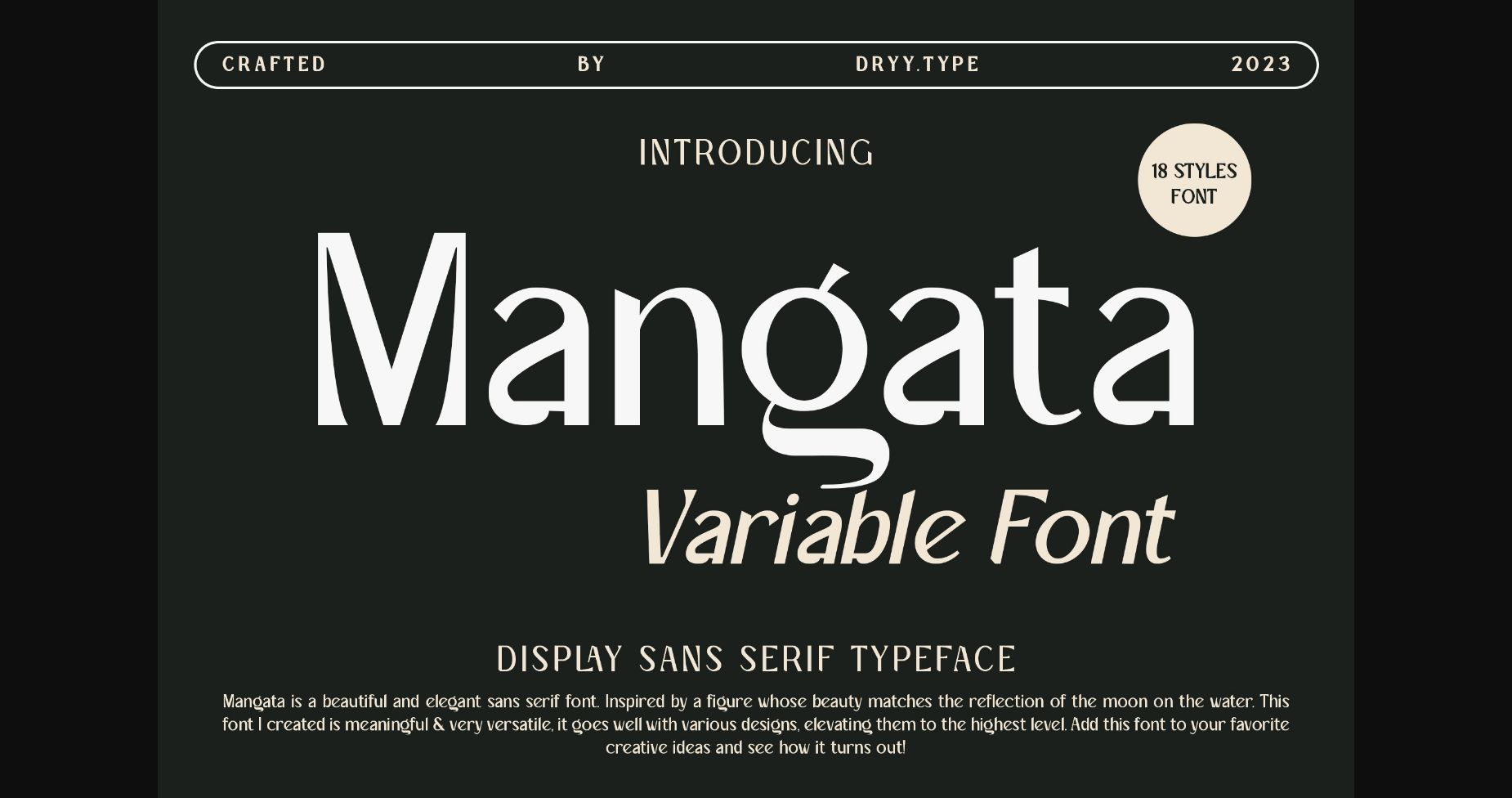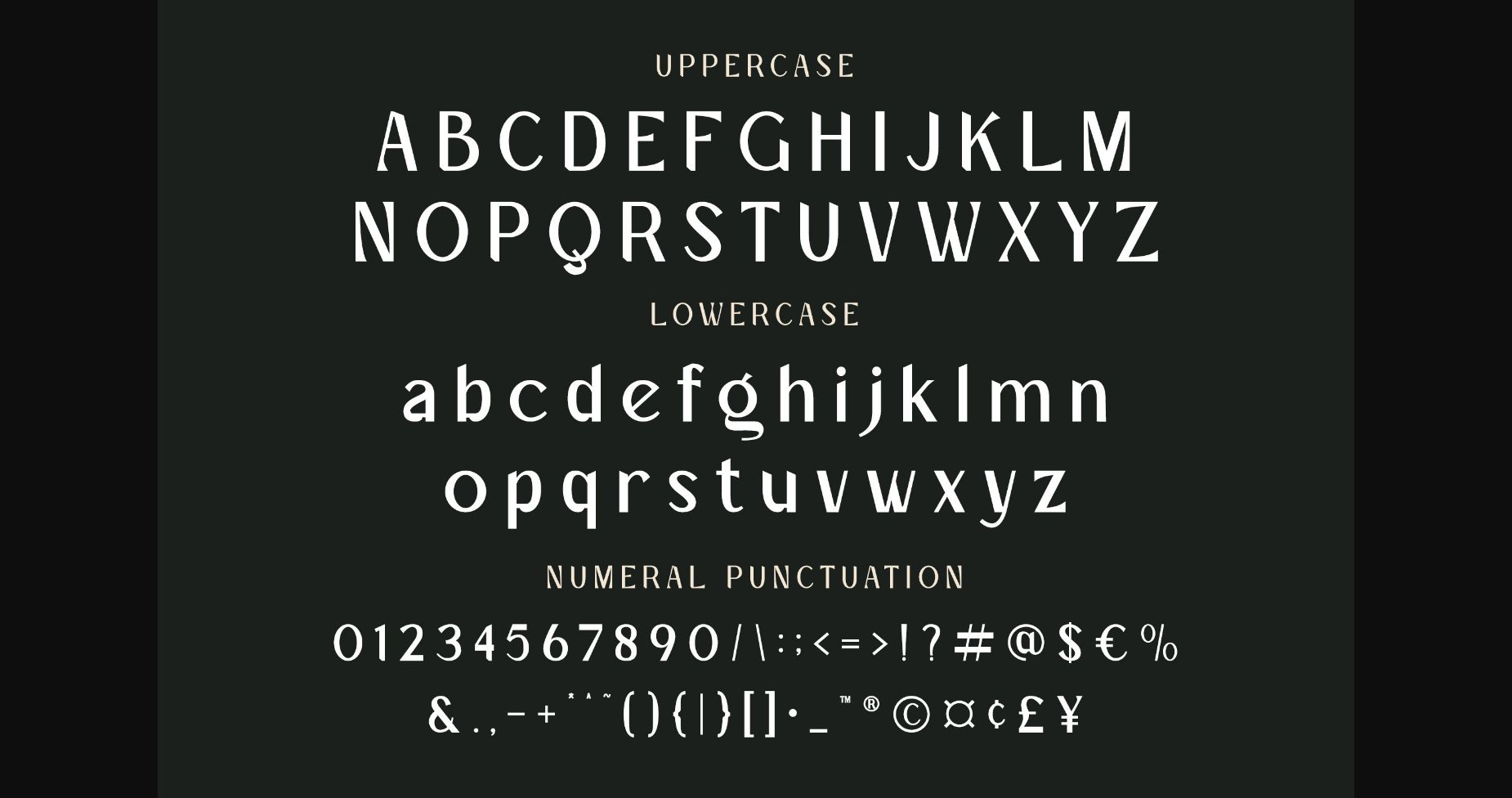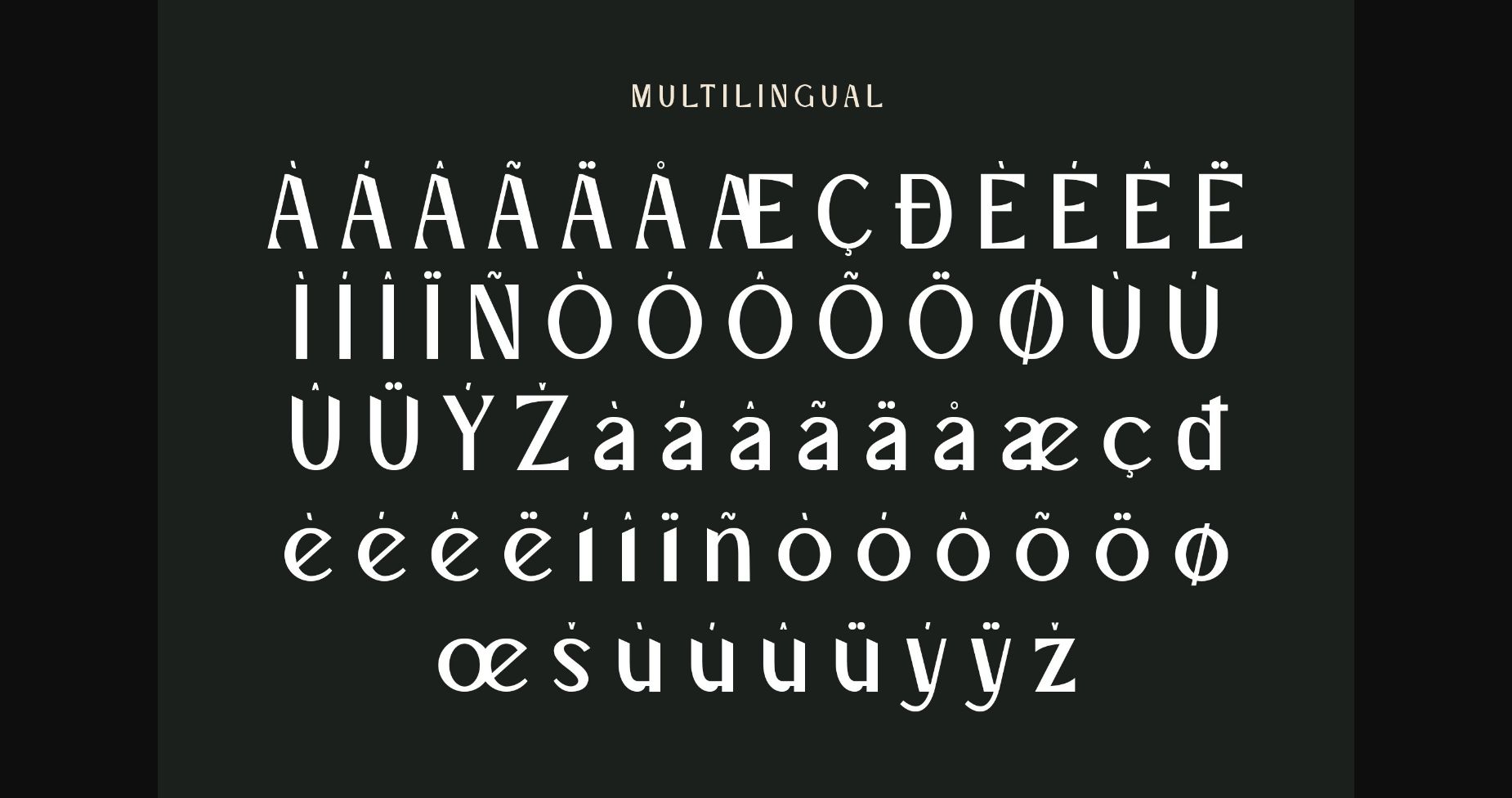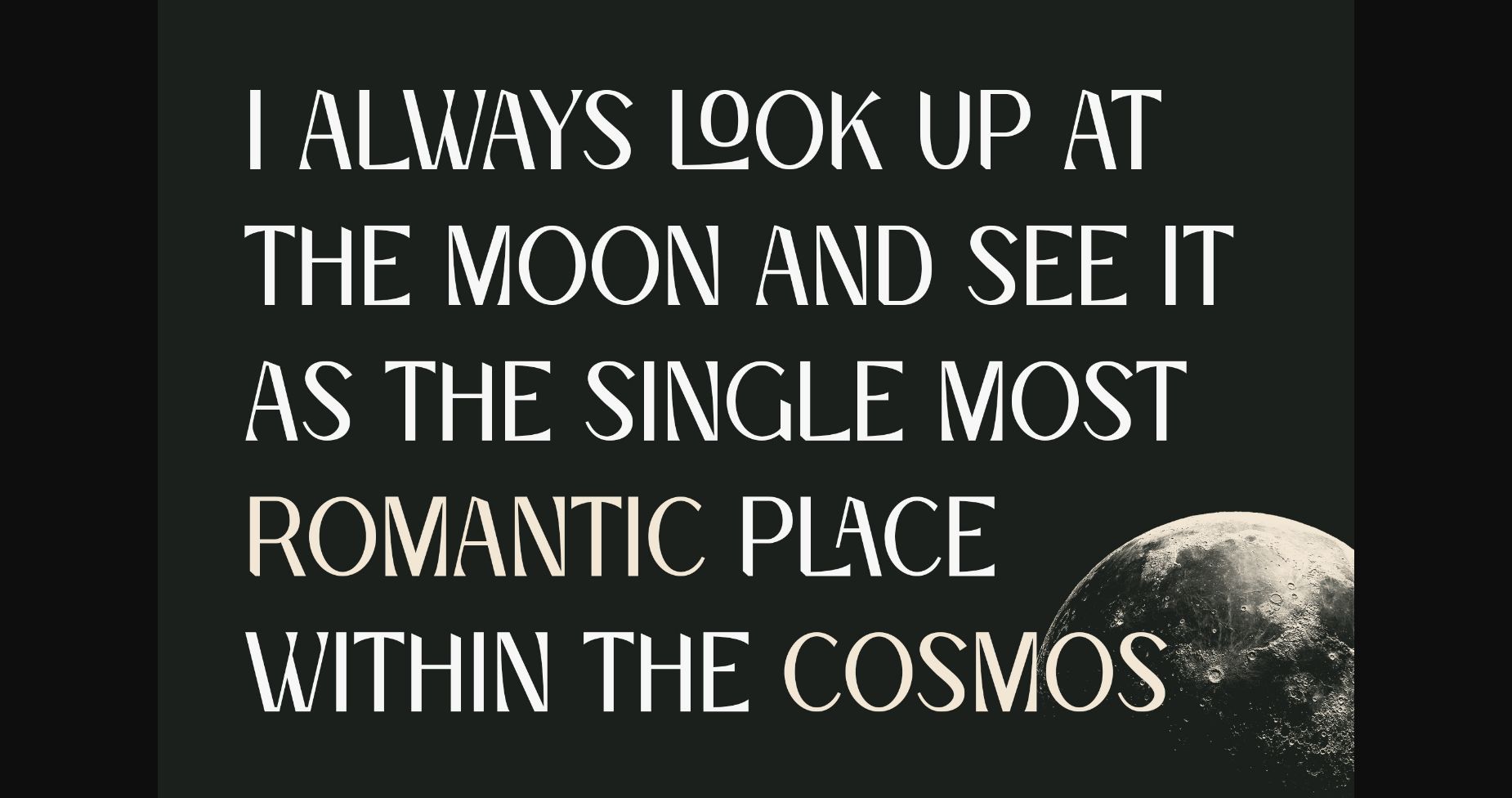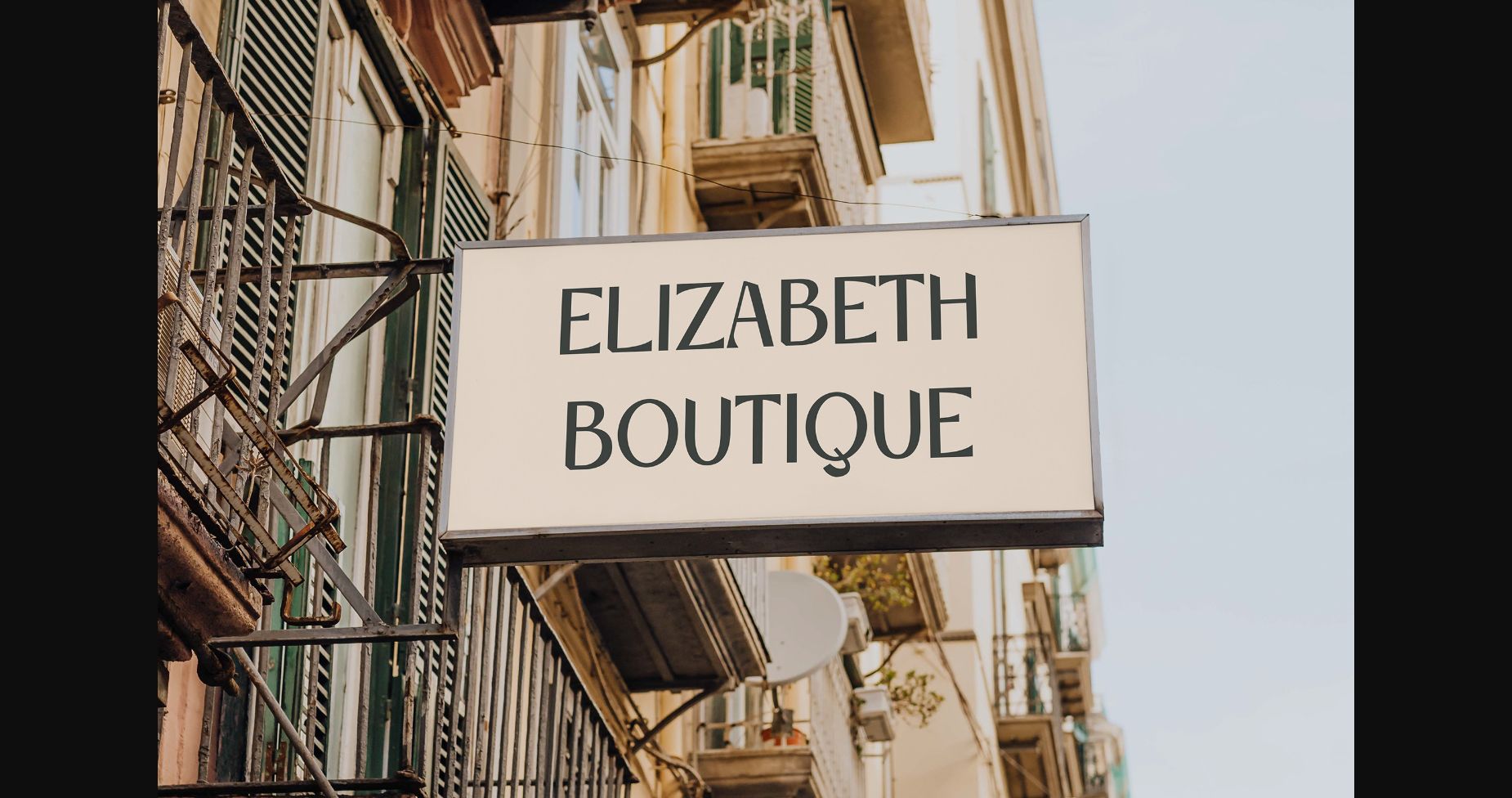
About Mangata Font
Mangata is a sans-serif font that captivates with its simple and refined design that exudes modern elegance. Its clean lines and sophisticated curves create a sense of balance and harmony, making it a versatile choice for a variety of projects. Perfect for designs that demand a contemporary and timeless appeal, this font delivers a strong visual impact. This font is PUA encoded which means you can access all of the amazing glyphs and ligatures with ease!